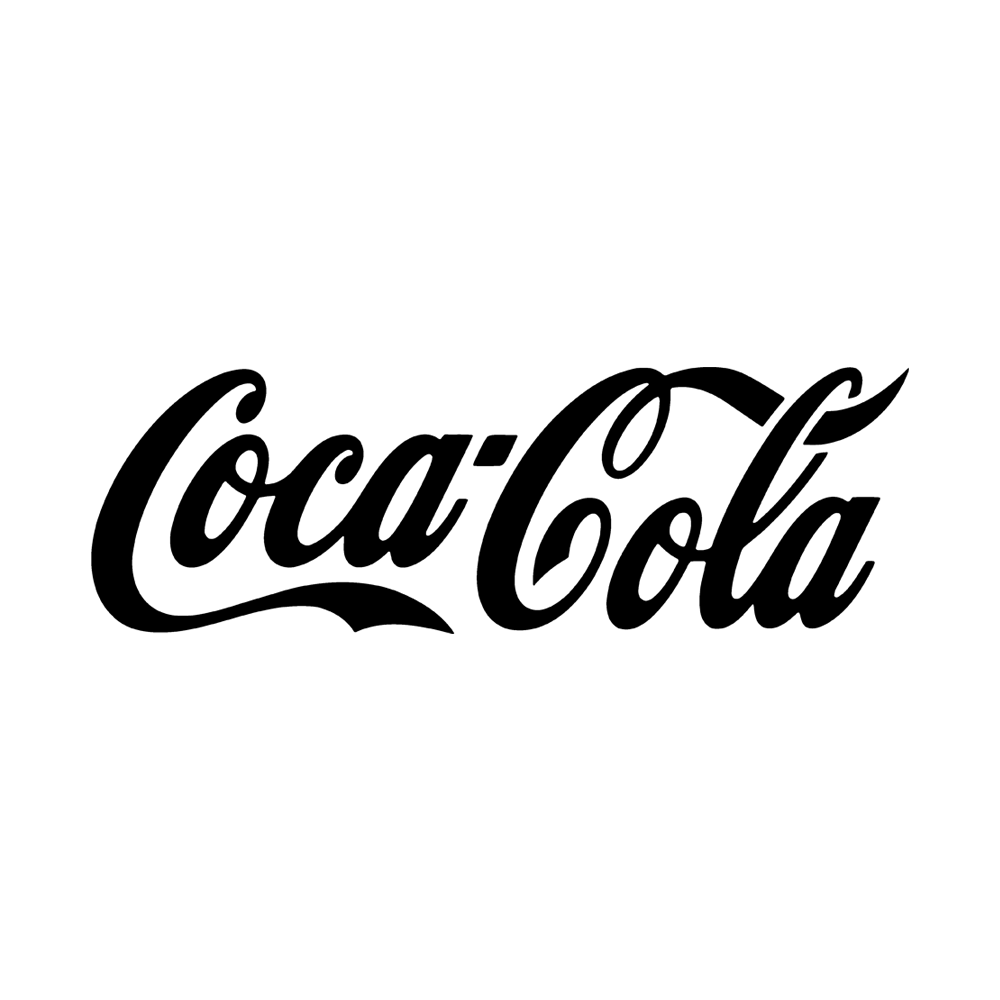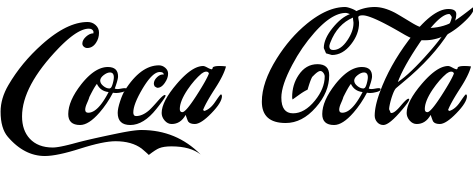
Coca Cola Font
LogoCoca-Cola is a carbonated soft drink that was invented in 1886 by John Stith Pemberton. It is one of the world's most popular and recognizable beverages, known for its distinctive flavor and red and white logo.
The Coca Cola logo font was hand lettered in 1885 but there are two replicas available called Loki Cola by Dale Thorpe and Coca Cola ii. Both fonts are free for personal use.